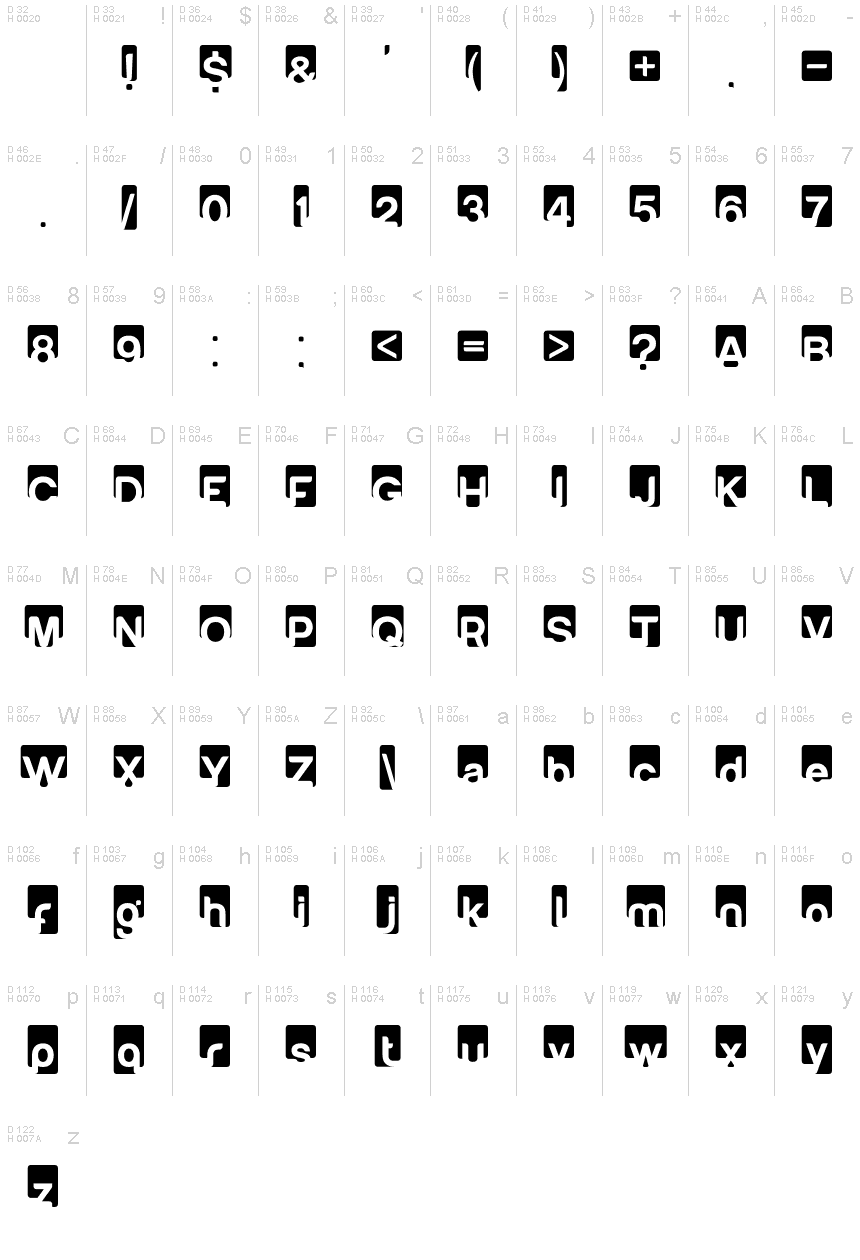
Afficher
Afficher, a striking display font by Fontalist, adds a touch of elegance and sophistication to any design project.
With its decorative and negative style, this unique typeface is perfect for creating eye-catching headlines, logos, and invitations. Its elaborate letterforms are ideal for fashion magazines, luxury brands, or high-end events. Afficher's intricate details make it suitable for website headers or social media banners that require a bold statement.